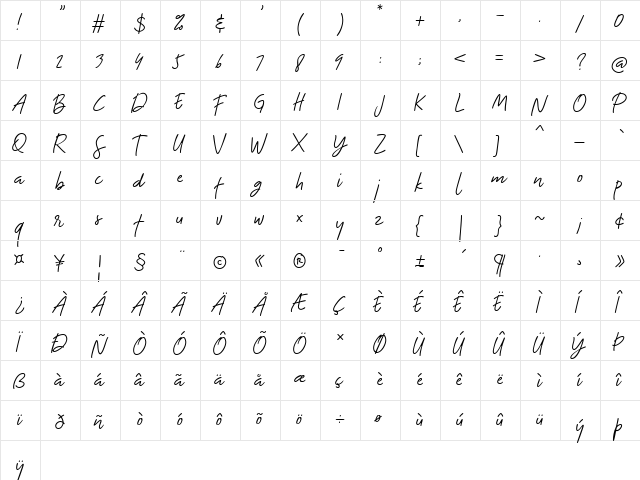
The Bouquet List Regular
Design Context for The Bouquet List Typeface
The Bouquet List is a composed and adaptable typeface that performs quietly and consistently across a wide range of design contexts.
Pro Tip: Pair The Bouquet List with a font of contrasting weight or personality to build a more expressive typographic hierarchy.